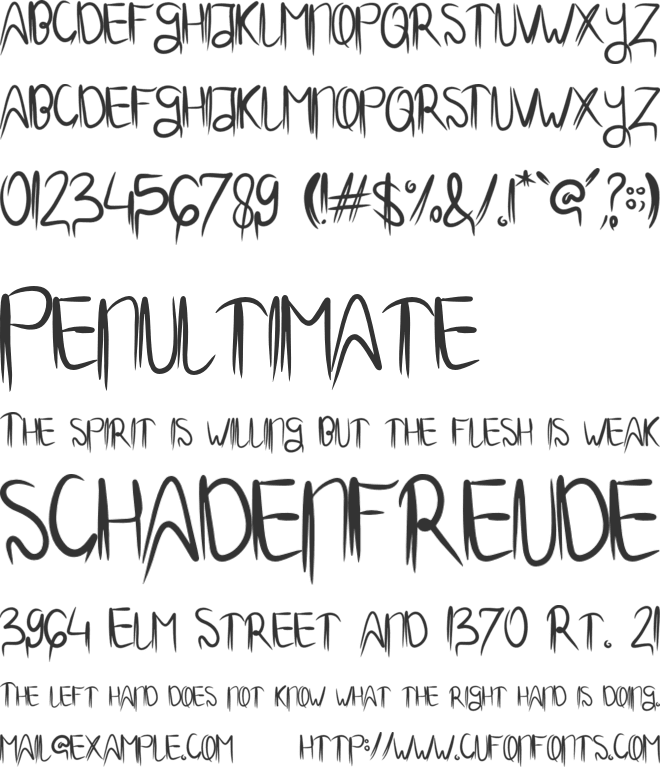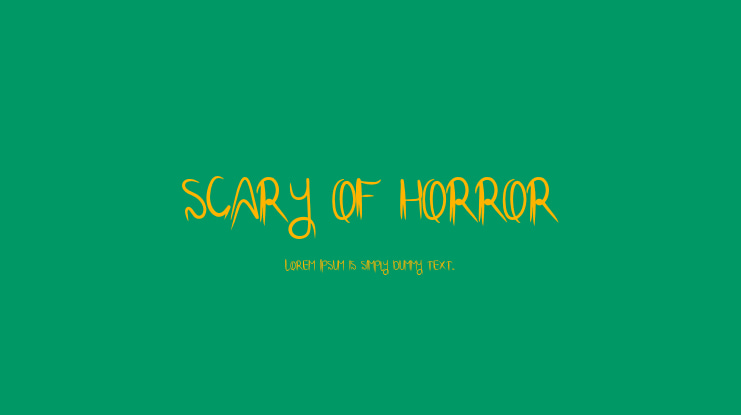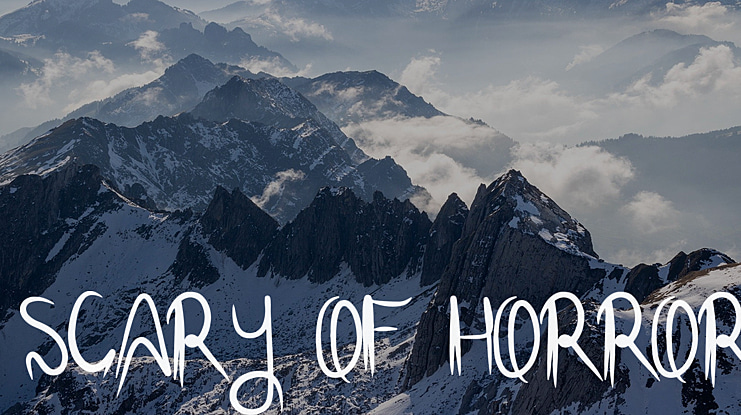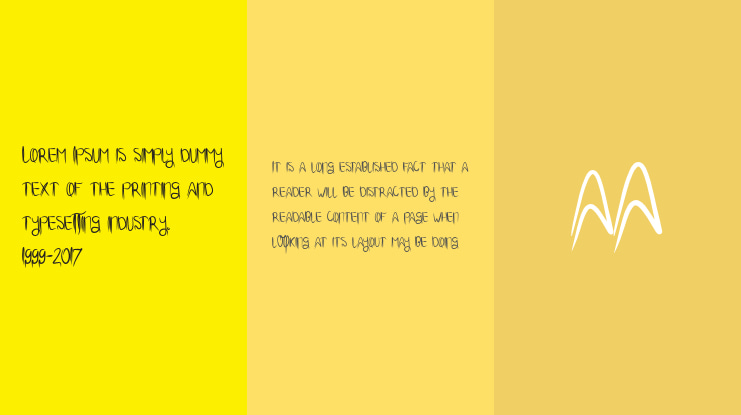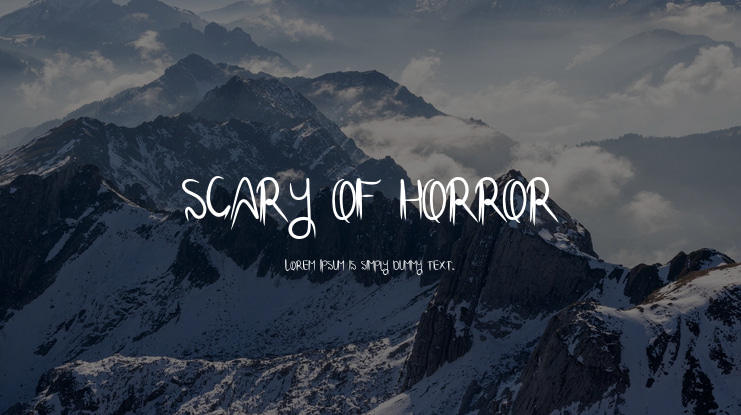
SCARY OF HORROR Font
hello welcome to the "Scary Of Horror" Font. Scary Of Horror is a scary-themed font which can be used for various horror-themed themes such as halowen themes, horror or horror films, as scary book covers etc.